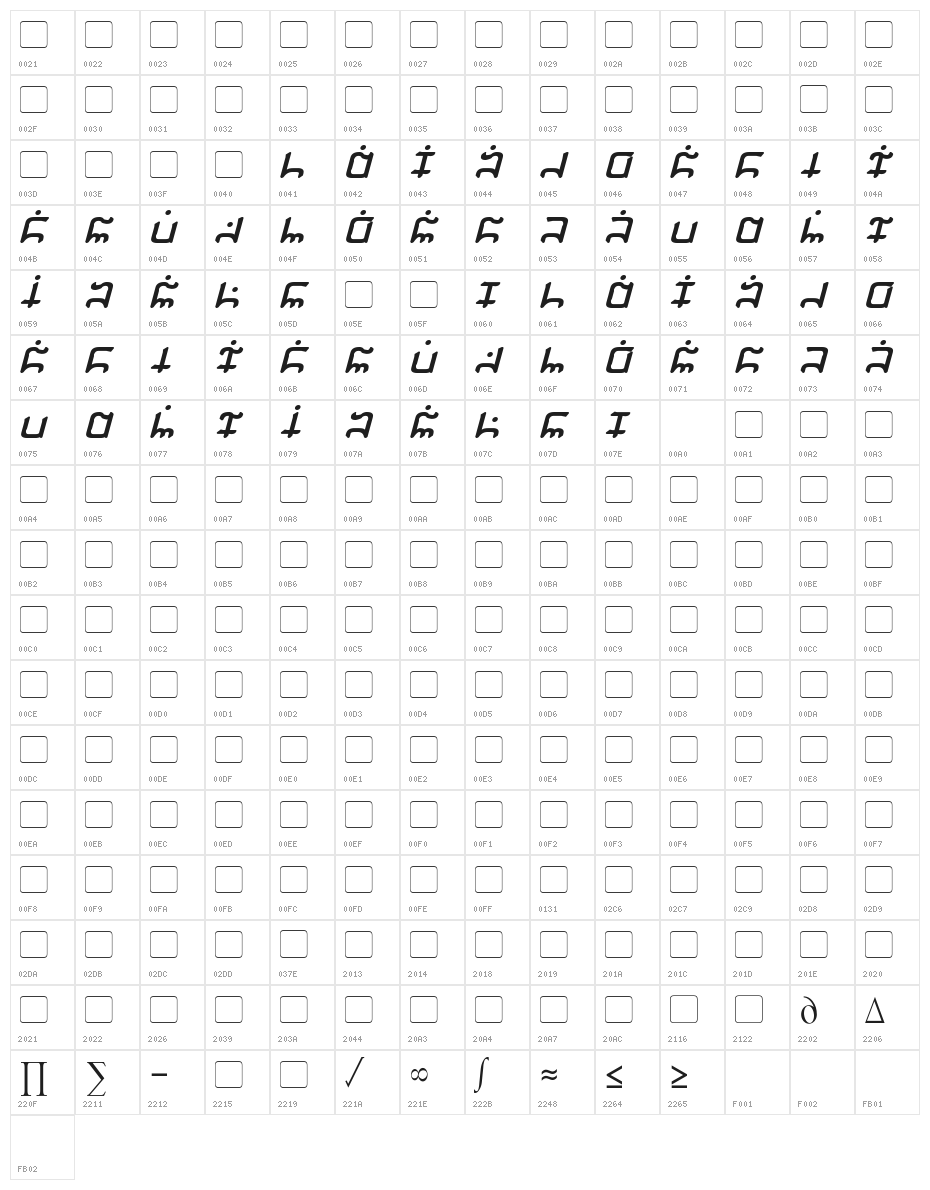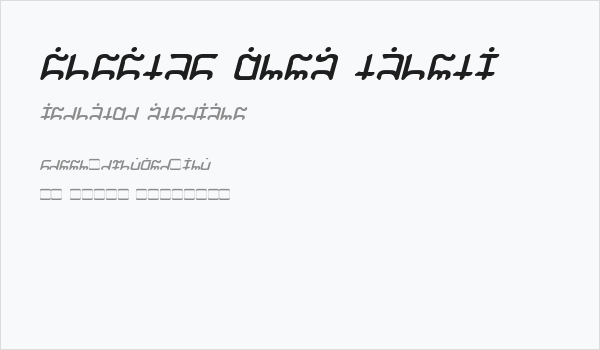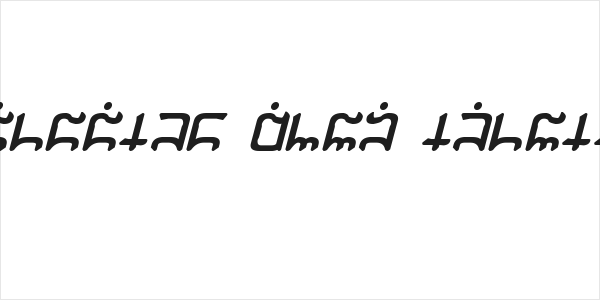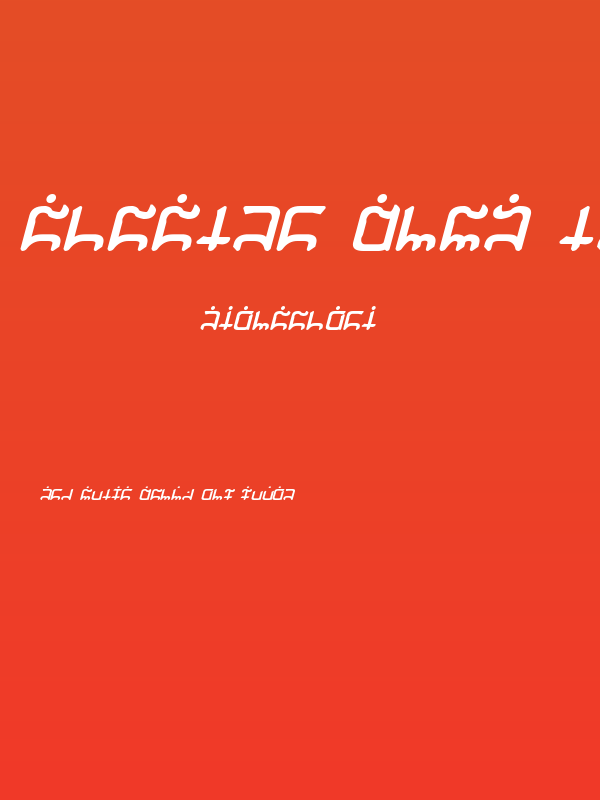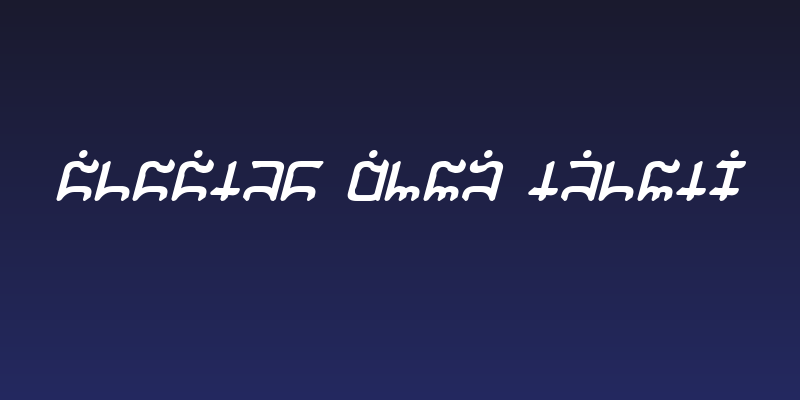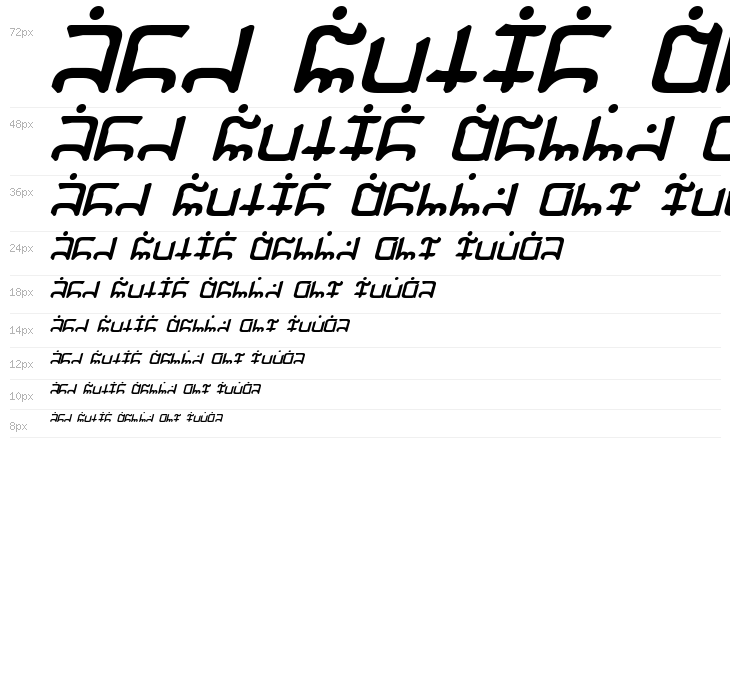
Gargish Bold Italic Font
Gargish Bold Italic Description
This font features a unique, decorative style with a bold and italicized appearance. The characters are designed with a flowing, script-like quality, incorporating distinct curves and loops that give it an artistic flair. The strokes are thick and consistent, providing a strong visual impact. The font lacks traditional serifs, leaning more towards a modern and abstract aesthetic. Its design is reminiscent of ancient scripts, adding a touch of mystery and intrigue. The overall presentation is both bold and dynamic, making it suitable for creative and expressive projects.
| Proposed Projects | Ideal for fantasy-themed designs, video game graphics, book covers, and artistic posters. |